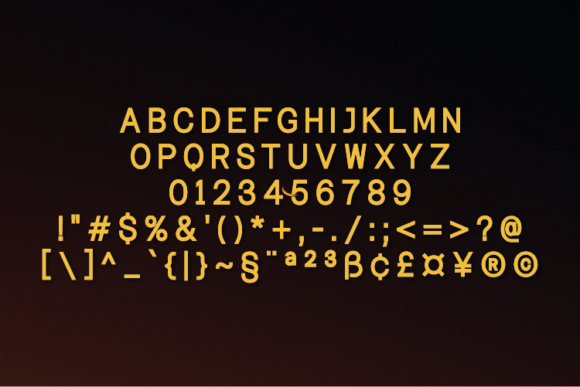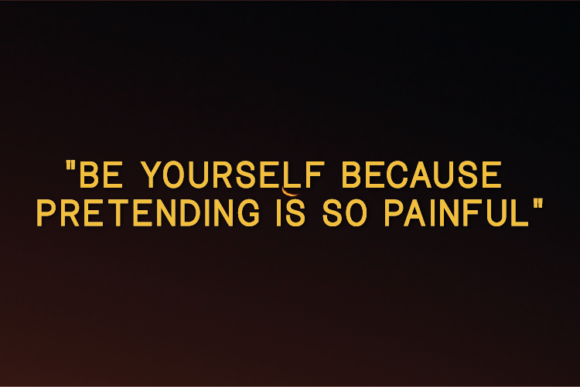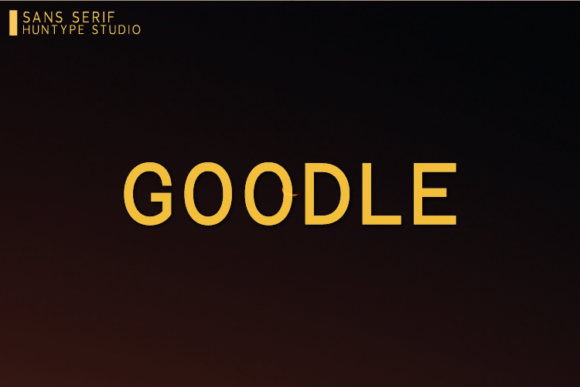
Introducing Goodle Font: The Ultimate Sans Serif for Creative Projects
Are you tired of using the same old fonts for your design projects? Look no further than Goodle Font, a minimal and neat sans serif font that’s perfect for adding a touch of elegance and sophistication to your creative endeavors. With its clean lines and simple design, Goodle Font is an incredibly versatile typeface that can easily be matched to an incredibly large set of projects.
The Characteristics of Goodle Font
Goodle Font is a sans serif font, which means it doesn’t have the small lines or flourishes that are commonly found at the ends of letters in serif fonts. This gives Goodle Font a clean and modern look that’s perfect for designs that need to be sleek and sophisticated. The font is also highly legible, making it easy to read in a variety of sizes and contexts.
One of the standout features of Goodle Font is its minimalism. The font has a very simple design, with a focus on clean lines and basic shapes. This makes it incredibly versatile, as it can be used in a wide range of design contexts without overpowering the other elements of the design.
The Benefits of Using Goodle Font
So why should you choose Goodle Font for your design projects? Here are just a few benefits of using this amazing font:
- Versatility: Goodle Font is incredibly versatile, making it suitable for use in a wide range of design contexts, from logos and branding to websites and print materials.
- Legibility: The font is highly legible, making it easy to read in a variety of sizes and contexts.
- Elegance: Goodle Font has a clean and sophisticated design that’s perfect for designs that need to be elegant and refined.
- Uniqueness: While Goodle Font is a simple design, it’s also unique and distinctive, making it a great choice for designers who want to create a lasting impression.
How to Use Goodle Font in Your Design Projects
Goodle Font is incredibly easy to use, and can be incorporated into a wide range of design projects. Here are a few ideas to get you started:
- Logos and branding: Use Goodle Font to create a clean and sophisticated logo that’s perfect for businesses and organizations.
- Websites: Goodle Font is a great choice for websites, as it’s highly legible and can be used in a variety of sizes and contexts.
- Print materials: Use Goodle Font in print materials like brochures, flyers, and business cards to add a touch of elegance and sophistication.
- Social media graphics: Goodle Font is a great choice for social media graphics, as it’s clean and easy to read, even at small sizes.
Tips for Pairing Goodle Font with Other Design Elements
Goodle Font is a versatile typeface that can be paired with a wide range of design elements to create a unique and visually appealing design. Here are a few tips for pairing Goodle Font with other design elements:
- Use Goodle Font with bold colors: Goodle Font looks great when paired with bold, bright colors. Try using it with a bold color scheme to create a design that’s eye-catching and engaging.
- Pair Goodle Font with images: Goodle Font looks great when paired with high-quality images. Try using it to add a touch of elegance and sophistication to your image-based designs.
- Use Goodle Font with simple shapes: Goodle Font looks great when paired with simple shapes and graphics. Try using it with basic shapes like circles, squares, and triangles to create a design that’s clean and modern.
In conclusion, Goodle Font is an amazing sans serif font that’s perfect for designers and crafters who want to add a touch of elegance and sophistication to their creative projects. With its clean lines, simple design, and high legibility, Goodle Font is an incredibly versatile typeface that can easily be matched to an incredibly large set of projects. So why not give Goodle Font a try today and see how it can help take your designs to the next level?